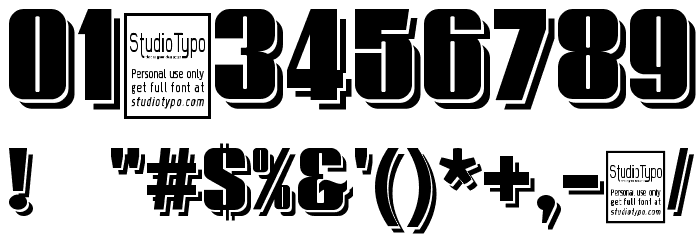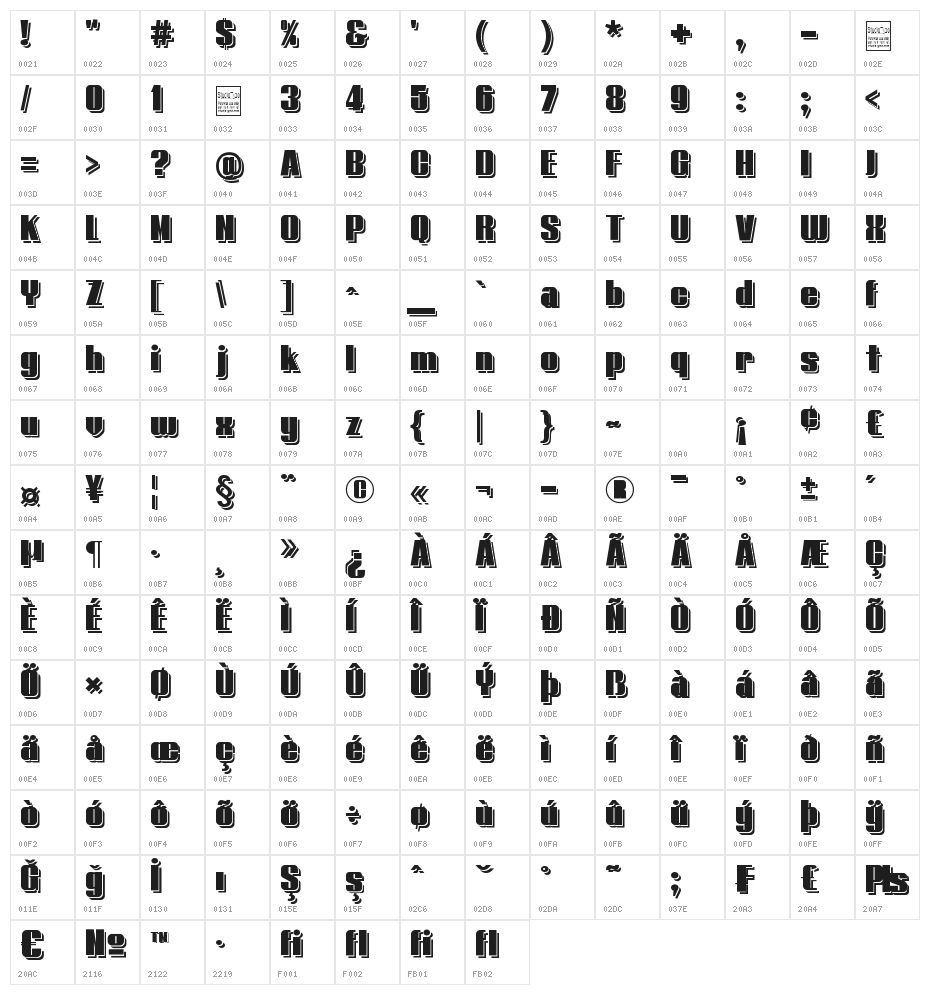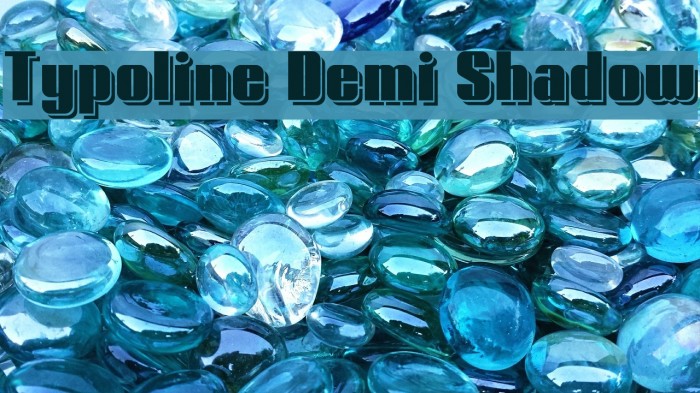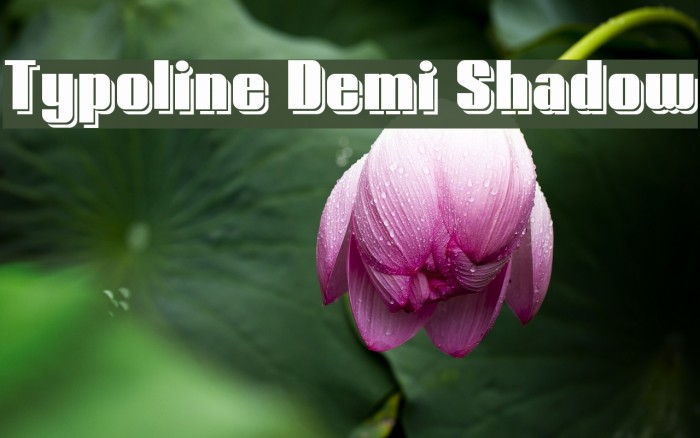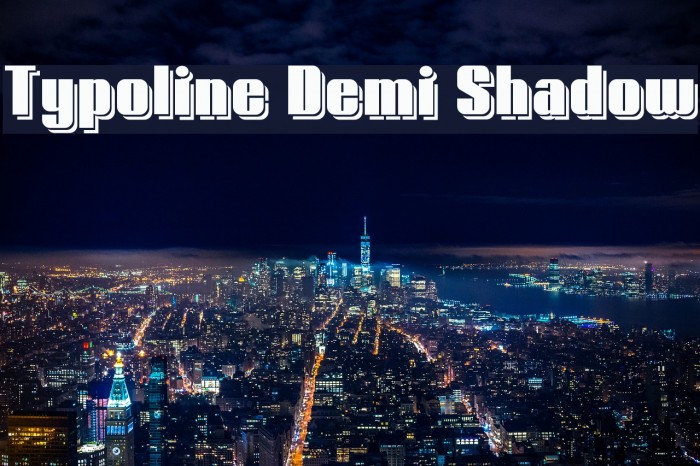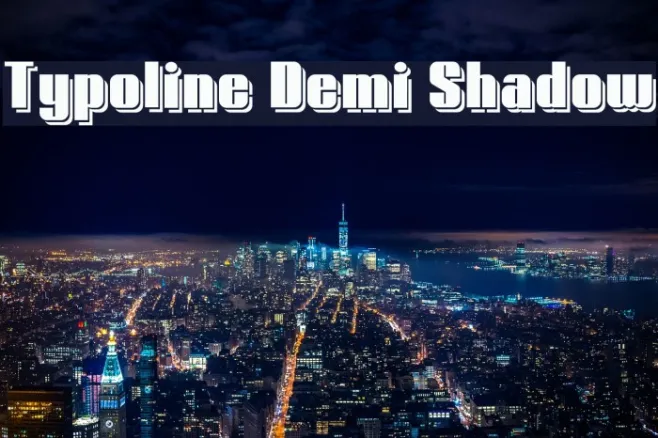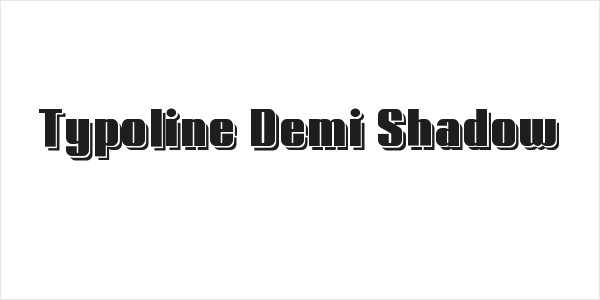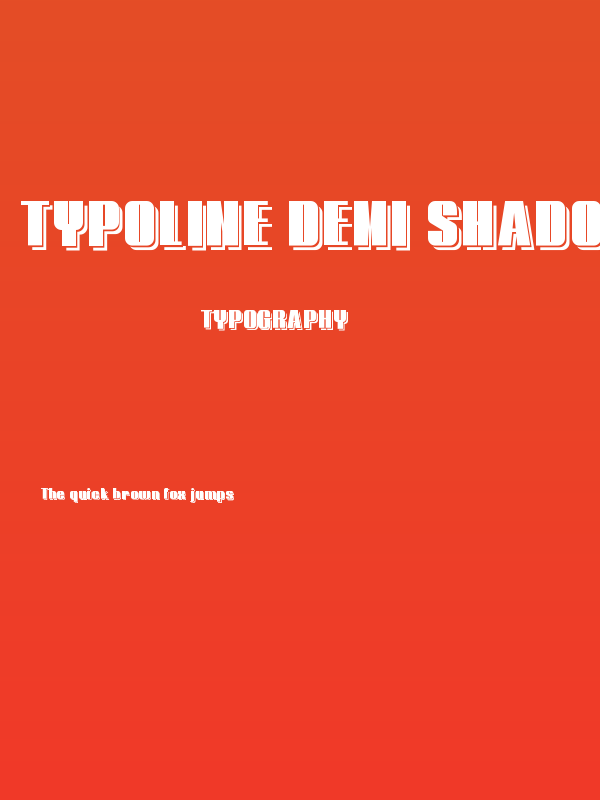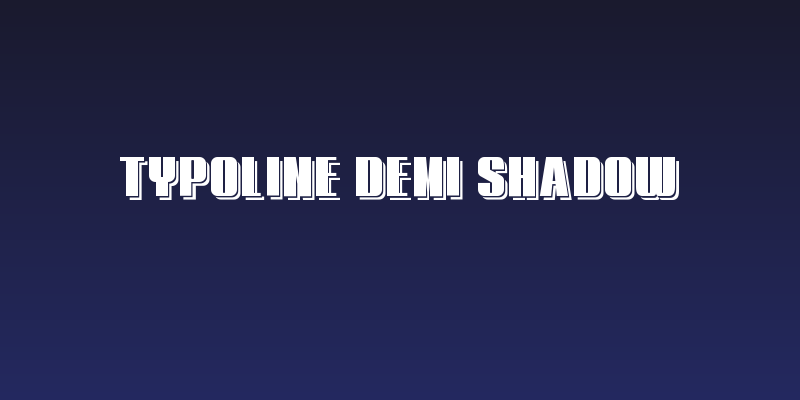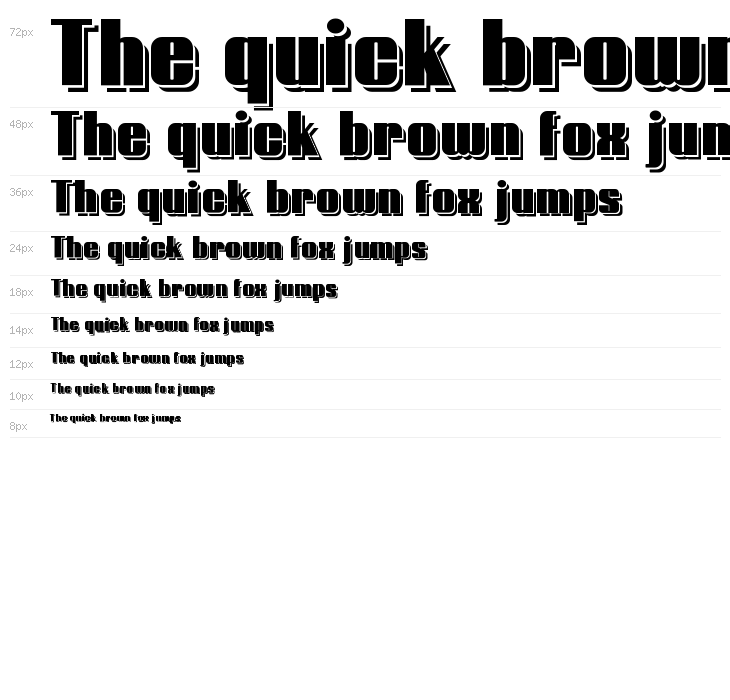
Typoline Demi Shadow Font
Typoline Demi Shadow Description
This font features a bold and impactful design with a shadow effect that adds depth and dimension to each character. The uppercase and lowercase letters are robust, with thick strokes and a strong presence, making them ideal for attention-grabbing headlines or titles. The numbers and special characters maintain the same bold style, ensuring consistency across all text elements. The shadow effect gives the font a three-dimensional look, enhancing its visual appeal and making it stand out in any design. This font is perfect for projects that require a strong, dynamic, and modern aesthetic.
| Proposed Projects | Ideal for posters, logos, headlines, and any design requiring a bold statement. |